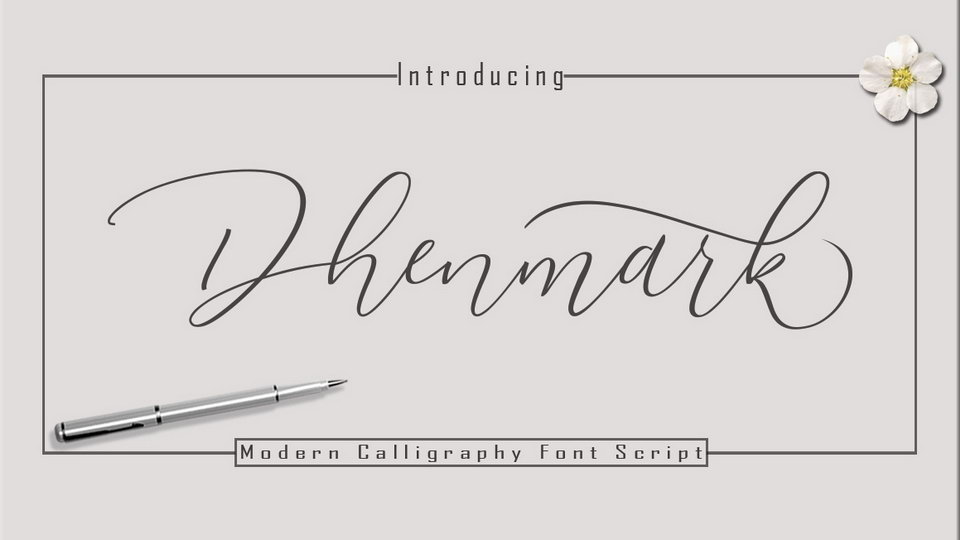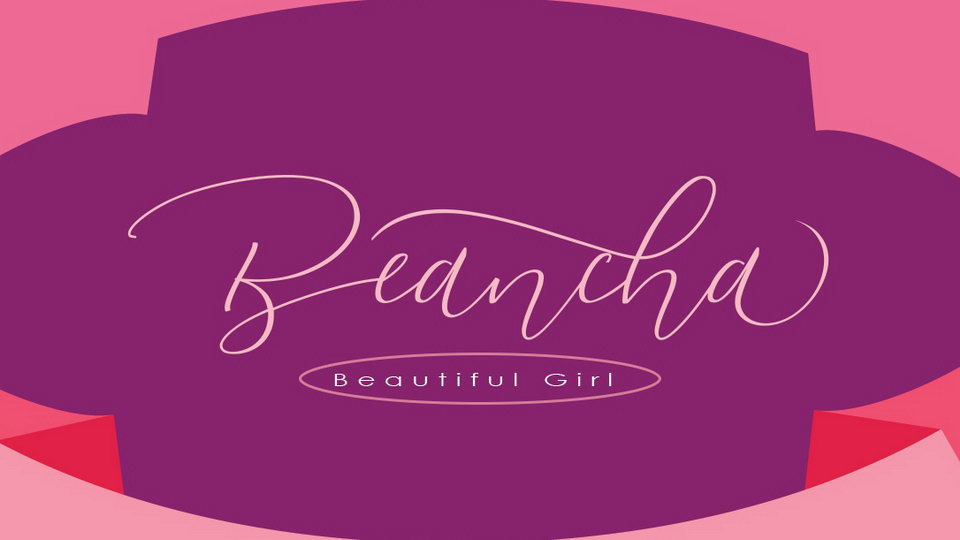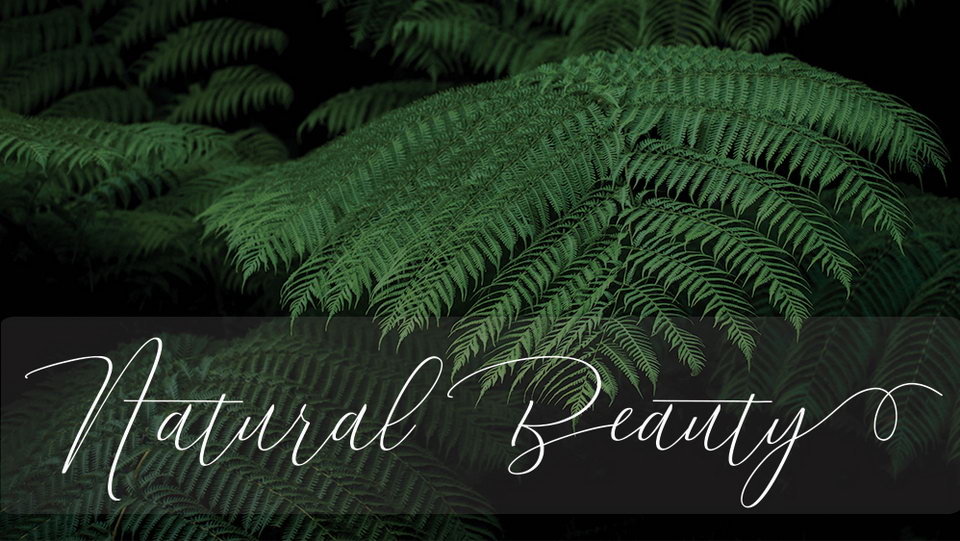
Dhenmark Script is a beautiful modern calligraphy font with free and light flow. Full version comes with two styles, contains a full set of glyphs and Opentype features.
Dhenmark font is suitable for personal branding, wedding decoration, letters and cards, quotes, social media and more.